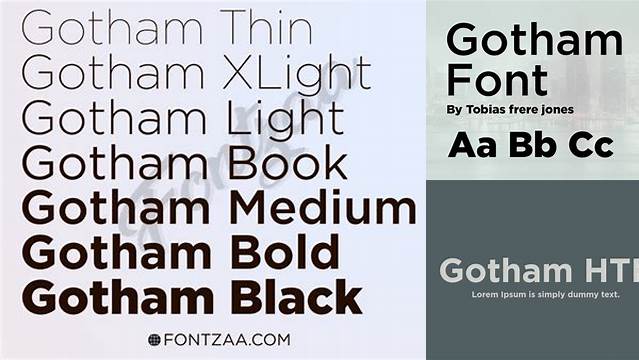
Gotham HTF Font: Free Download & Guide
Hey there, font fanatics! 👋 Ever stumbled upon the sleek, modern Gotham HTF font and thought, "Man, I need this in my life"? Well, you're in luck! This article is your ultimate guide to everything Gotham HTF Font, including how to snag a free download, what makes this typeface so special, and how to use it like a pro. So, grab your coffee, settle in, and let's dive into the world of this iconic font!
1. What Exactly is Gotham HTF Font?
Alright, guys, let's get the basics down first. Gotham HTF isn't just any font; it's a geometric sans-serif typeface that's become a design staple. Designed by Tobias Frere-Jones and released in 2000, it's known for its clean lines, strong presence, and versatility. You've probably seen it everywhere – from the Obama presidential campaign to various brand logos and website designs. The "HTF" in the name refers to "Hoefler & Frere-Jones," the original foundry that released the font. It’s all about those clean, strong geometric shapes that make text pop without being overly flashy. Gotham HTF offers a range of weights and styles, allowing for diverse design applications. Its balanced design makes it incredibly readable, even in large blocks of text or small sizes. This balance is a key factor in its popularity; designers love it because it works well in almost any context. The font family includes various styles, like light, regular, bold, and black, so you can tailor your text appearance. Its design is simple, yet sophisticated. The characters are meticulously crafted, providing a sense of order and clarity. Gotham HTF is a versatile tool for conveying information and creating visually appealing designs. From headlines to body text, it adapts seamlessly, reinforcing its position as a top choice in the design world. This adaptability is why it’s such a powerful tool in any designer’s arsenal. Understanding what makes Gotham HTF a special is key to appreciating its elegance and functionality. And trust me, once you start using it, you'll understand why everyone loves it. Think of it as the little black dress of fonts – it just works, always.
2. Why is Gotham HTF so Popular?
So, what's the big deal? Why is Gotham HTF Font everywhere? Well, there are a few key reasons. First off, its clean, geometric design makes it incredibly versatile. It works well for everything from branding and logos to website design and print materials. Secondly, the font is highly readable, which means it's great for both headlines and body text. The simple, uncluttered design ensures that the message is conveyed clearly and effectively. Thirdly, the font has a modern and sophisticated look. This makes it a go-to choice for brands aiming to project a sense of professionalism and trustworthiness. Its adaptability is huge. Designers love that it's not tied to a specific trend or style. It can be used in various contexts and still look relevant. This enduring appeal is part of the reason why Gotham HTF has stood the test of time. The font's wide range of weights and styles, offers incredible flexibility. Whether you need a bold headline or a light, elegant text, Gotham HTF has a style to fit. This also ensures that your design looks consistent and polished. Because of its neutrality, it doesn’t overpower other design elements, but complements them. You can use it without feeling like it’s overshadowing other visuals. This ability to enhance a design while maintaining a low profile makes Gotham HTF an essential asset. The font's popularity isn’t just about aesthetics; it's also about practicality. This perfect blend of style and usability ensures its continued use across design. From the streets to the screen, Gotham HTF continues to leave its mark on design.
5. Gotham HTF Font in Graphic Design: Best Practices
Alright, let's get into the nitty-gritty of using Gotham HTF Font in graphic design. Its clean geometric design makes it ideal for a wide range of applications. First things first: use the right weight and style. Gotham HTF comes in a variety of weights (light, regular, bold, black) and styles (italic, condensed). Choose the one that best fits the tone and purpose of your design. For headlines, bolder weights work best. They grab attention and make a strong statement. For body text, use a regular or light weight to enhance readability. Remember, readability is king. Ensure that the text is easy to read and understand. Pay close attention to kerning and leading. Kerning is the space between individual letters, and leading is the space between lines of text. Adjust these settings to optimize readability and visual appeal. A little tweaking can go a long way in making your design look professional. Another key tip is to use it with care. Avoid overusing it. While it's versatile, using it for every single element can dilute its impact. Gotham HTF works well in conjunction with other fonts. Complement Gotham HTF with a serif font for body text. This can create an interesting contrast and improve readability. Consider the overall aesthetic. It has a modern, minimalist aesthetic, so it works well with clean layouts. Avoid cluttered designs that might clash with its simplicity. Make sure your design is consistent. Gotham HTF has a wide range of weights, so use it thoughtfully. Keep your designs unified. Also, consider your target audience. Choose Gotham HTF based on what will appeal to them. Use it when creating brochures. The font lends itself well to brochures. It is readable and looks professional. And of course, always double-check your work. Proofread your designs to ensure there are no errors. These best practices will help you use Gotham HTF effectively. Now go create some amazing designs!
6. Gotham HTF for Web Design: Making it Work Online
7. Gotham HTF Font in Branding: Creating a Strong Identity
Let's talk about branding, guys. Gotham HTF Font is a powerhouse for establishing a strong brand identity. Its clean, modern aesthetic makes it ideal for projecting professionalism and sophistication. When you use it in your branding, the font communicates your values. When choosing Gotham HTF for your brand, think about what it says about you. Make sure it aligns with your brand's values. It's all about the image. Consider the personality you want to portray. Use Gotham HTF to create a visual brand identity. Use it for your logo, website, and marketing materials. It's a versatile font. So you can use different weights and styles to create variations. Keep your brand consistent. Maintain a consistent look and feel across all your materials. This reinforces brand recognition. Think about the target audience and how the font will appeal to them. Gotham HTF is a neutral and versatile font. Use it carefully. Don't overuse the font. Remember that less is often more when you are designing a brand. Pair it with other fonts. You can mix Gotham HTF with a complementary font. You can pair it with a serif font for the body text. This will add visual interest. Think about the message. Make sure the font reflects the message. You can use its simplicity. By using Gotham HTF, you can create an identity that captures attention. You can use it to create a memorable and recognizable brand identity. So, go forth and create a brand that stands out from the crowd! Now go create a fantastic brand identity!
8. Exploring Gotham HTF Alternatives: Other Great Fonts
While Gotham HTF Font is fantastic, it’s always good to know about alternatives. Let's explore some other great fonts that share similar qualities. These are other fonts you can use to create great designs. For a similar geometric sans-serif feel, you could try Montserrat. This is a popular free alternative, known for its clean lines and versatility. Another option is Open Sans. This is a highly readable font. It's a good choice for body text and headings. Another option is Lato. This is a friendly, modern sans-serif. It's great for various design applications. If you are looking for something with a bit more personality, try Proxima Nova. This is a versatile font that is widely used by designers. Another font to consider is Futura. This is a classic geometric sans-serif font. This is a good option for a professional look. You can also try Helvetica Neue. This is a very popular font, great for a wide range of applications. Be sure to always consider your project's specific needs. Experiment with various options. Choose fonts that resonate with you and your target audience. By exploring alternatives, you can expand your design toolkit and discover new possibilities. Always keep exploring! By doing this, you can keep creating incredible designs.
9. Gotham HTF Font: The History and Origins
Okay, history buffs, let's dive into the story behind Gotham HTF Font. This font has a rich history. It’s not just a pretty face! Designed by Tobias Frere-Jones, it first saw the light of day in 2000. Frere-Jones, a renowned type designer, drew inspiration from the architectural lettering of the mid-20th century. These were the signs you’d find on buildings. Frere-Jones captured that spirit of American urban design, especially from the signs that were found in New York City. Gotham HTF gained popularity. It quickly became a favorite among designers. The Obama presidential campaign also used it, which helped propel it into the mainstream. This campaign put the font into the public eye. The clean and modern design of the font reflects American design trends. The font's geometric shapes and clean lines reflect its roots. The font is a testament to the power of good design. It’s a great example of how design can influence culture and the world around us. Understanding the font's origins can add context. It's about appreciating its enduring appeal. Gotham HTF Font has a great history! Always keep exploring.